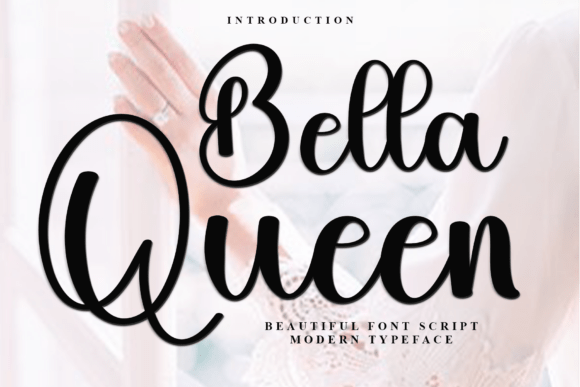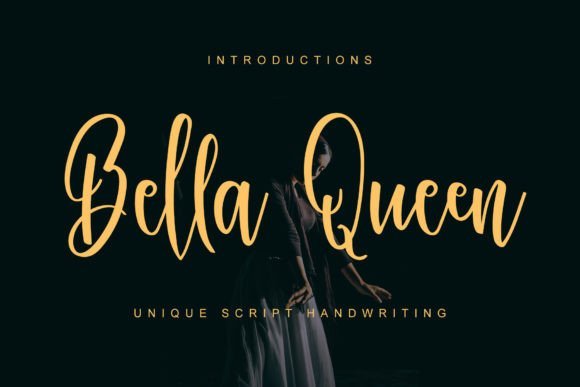
Unleash the Elegance: Discover the Bella Queen Font You know that moment when a design comes together, and you feel like you’ve hit the jackpot? It’s that spark of creativity, that perfect blend of style and functionality, that makes your project truly shine. For many designers, it’s the fonts that make all the difference. And…